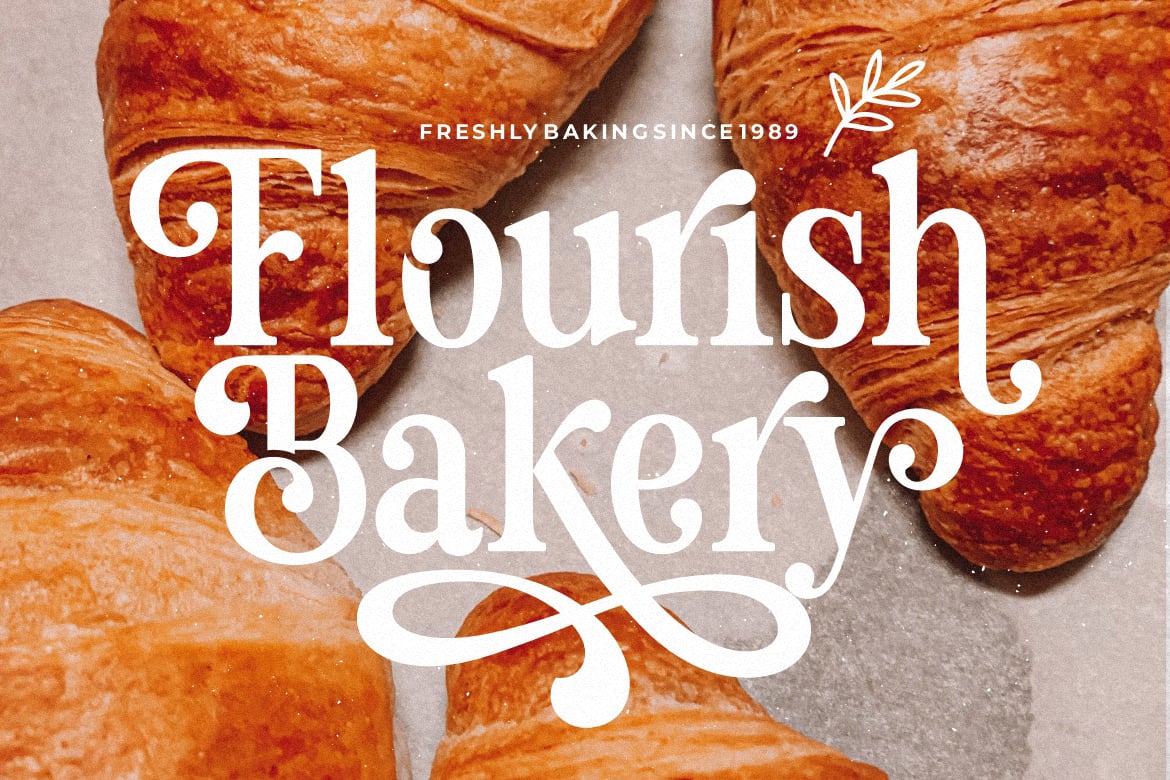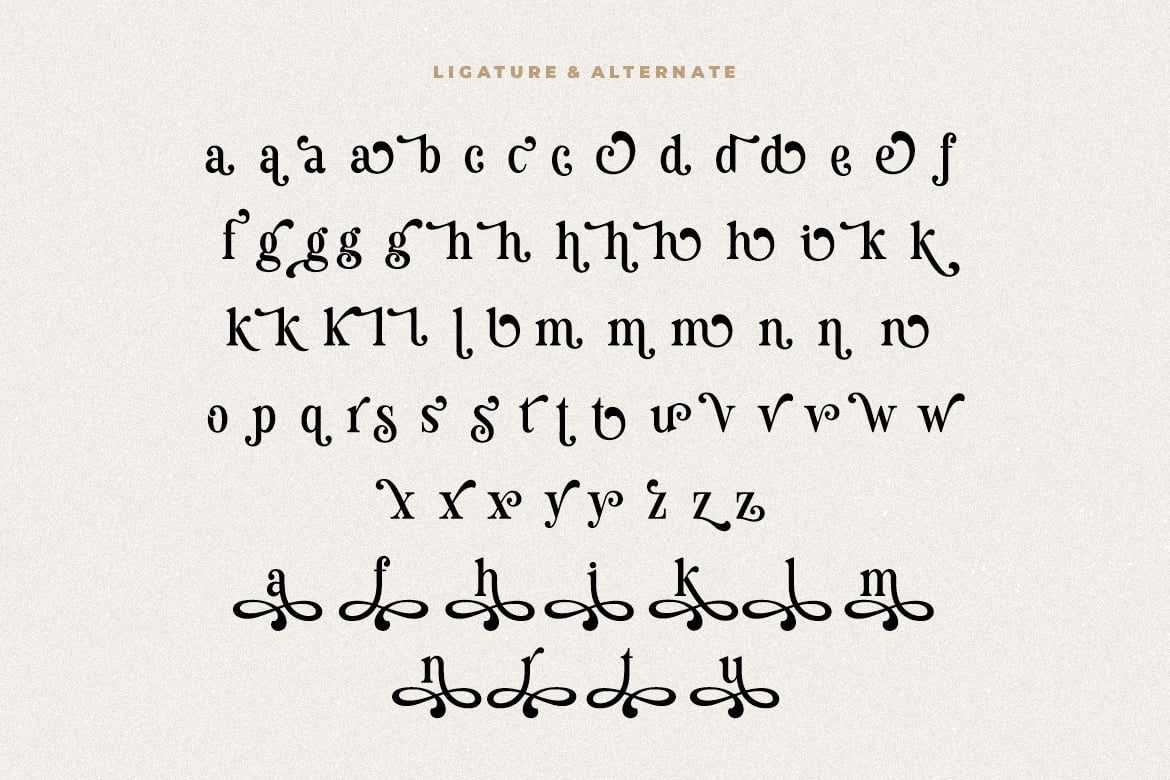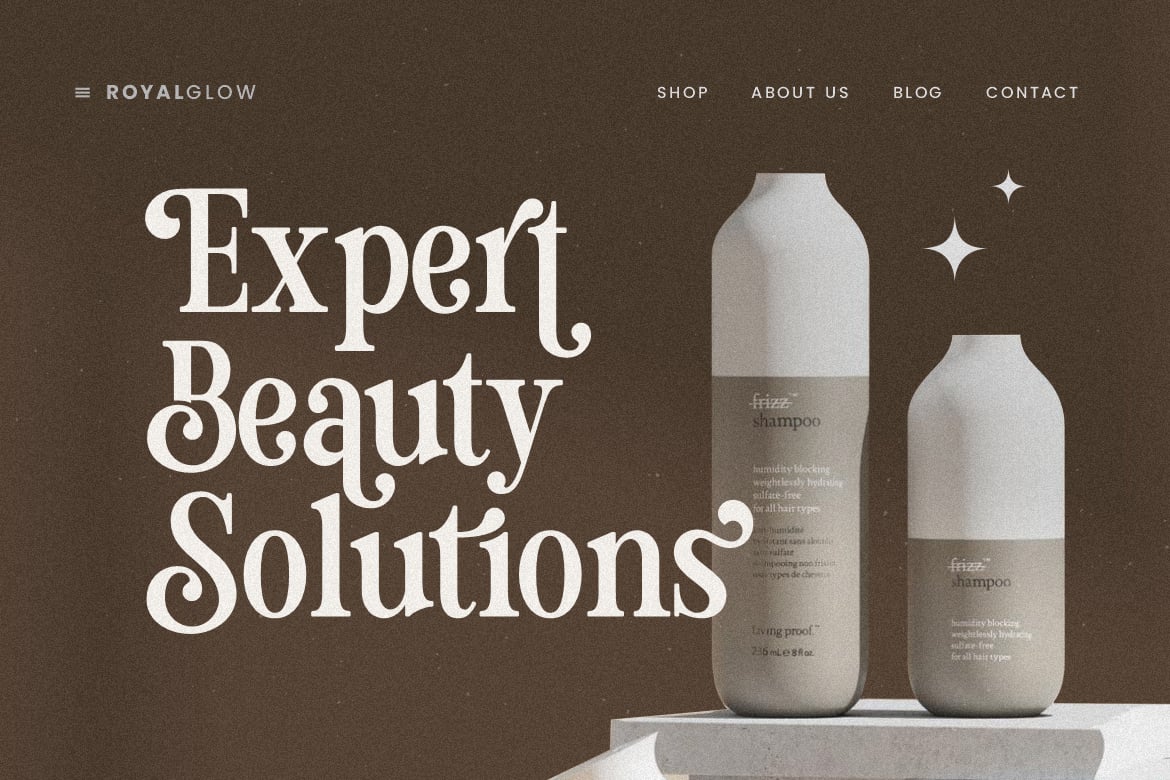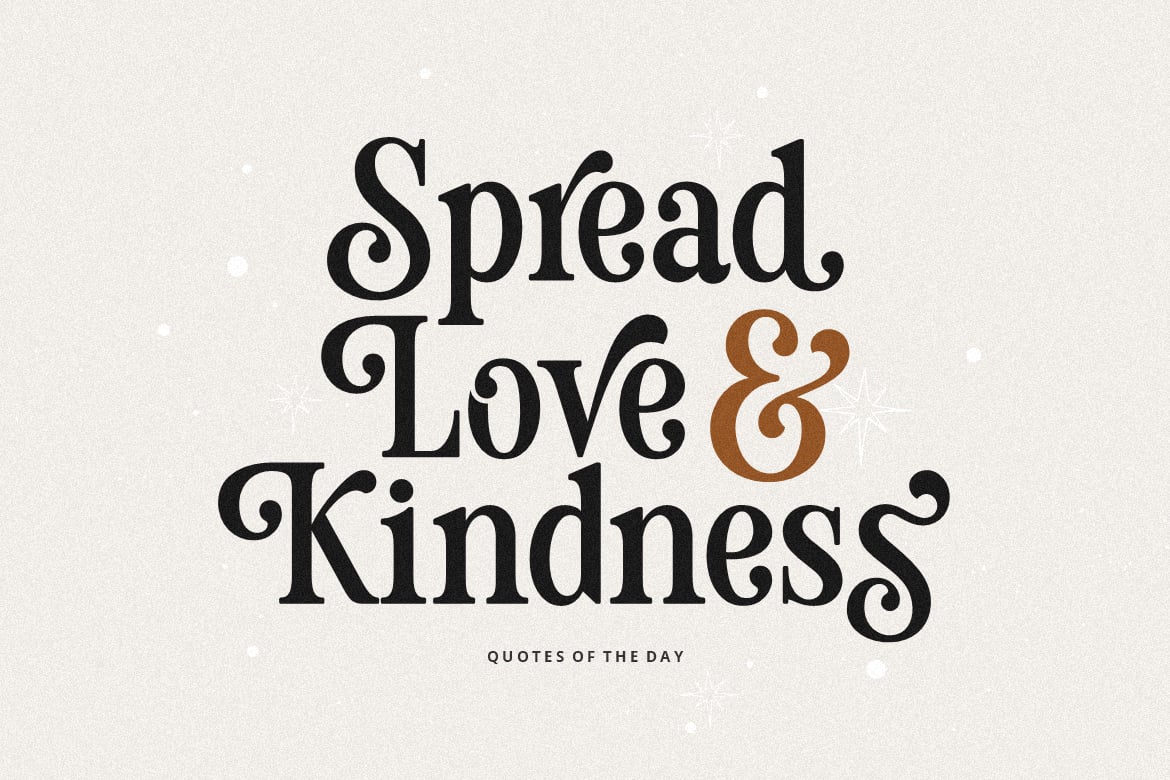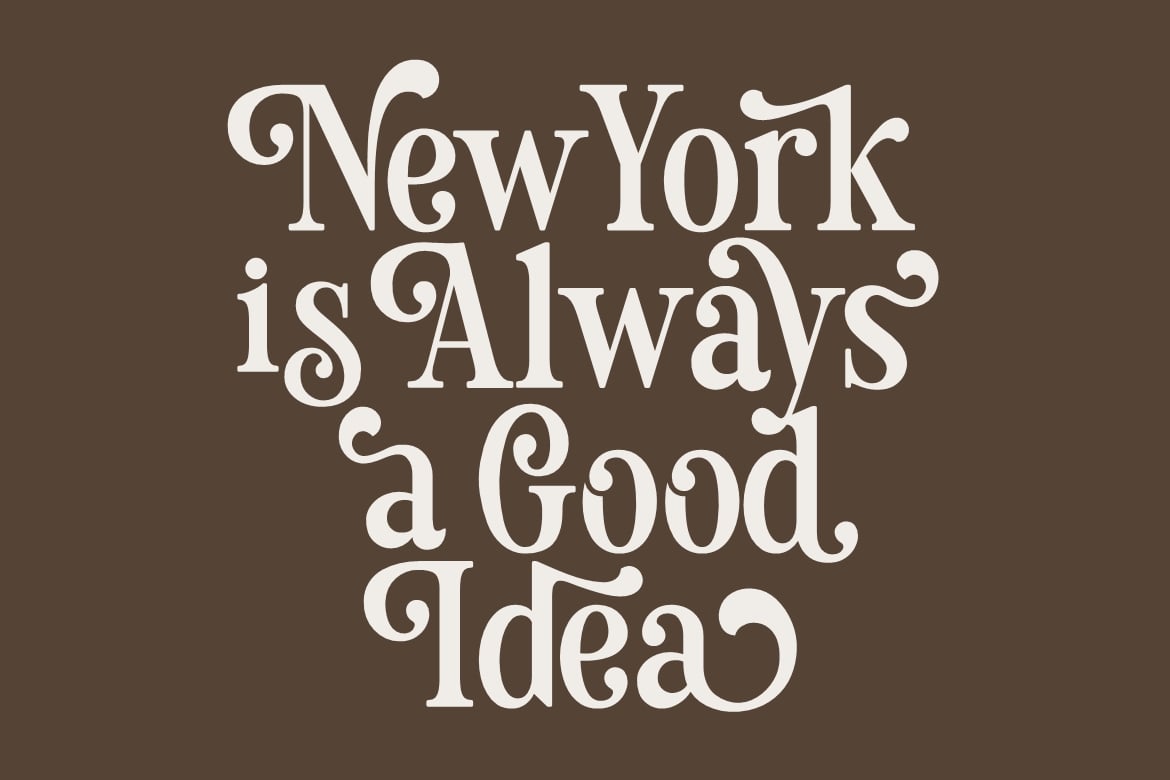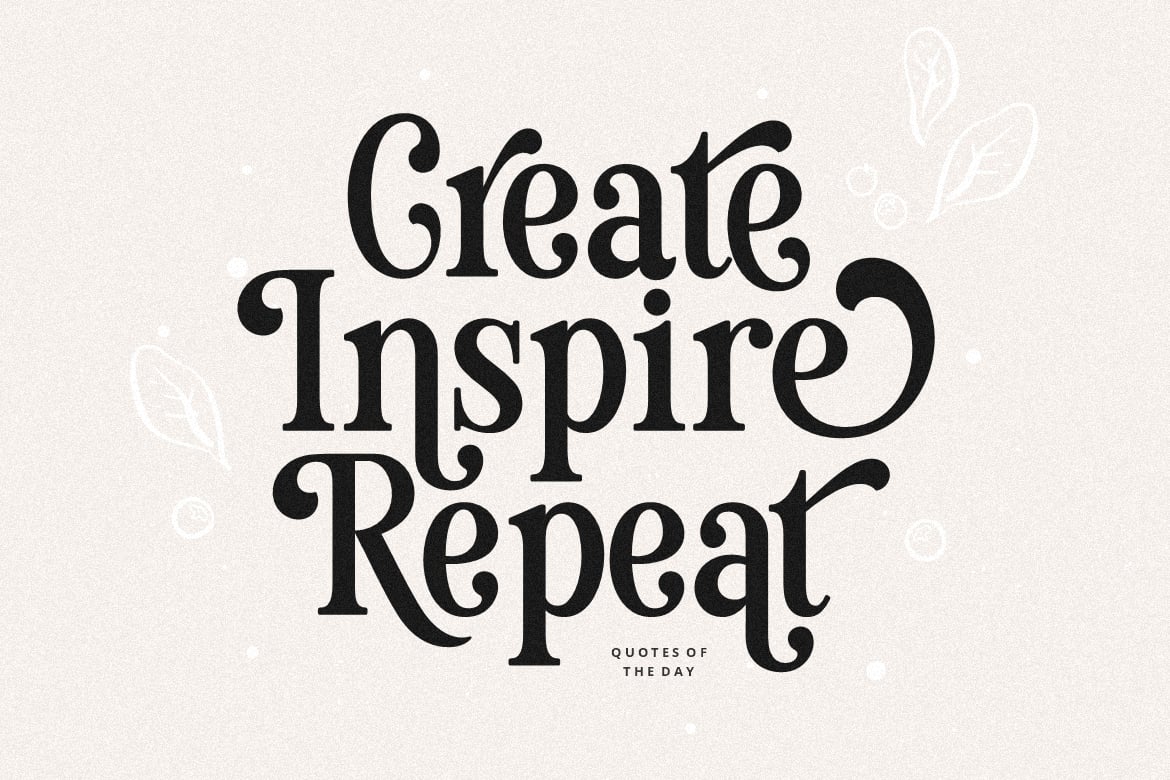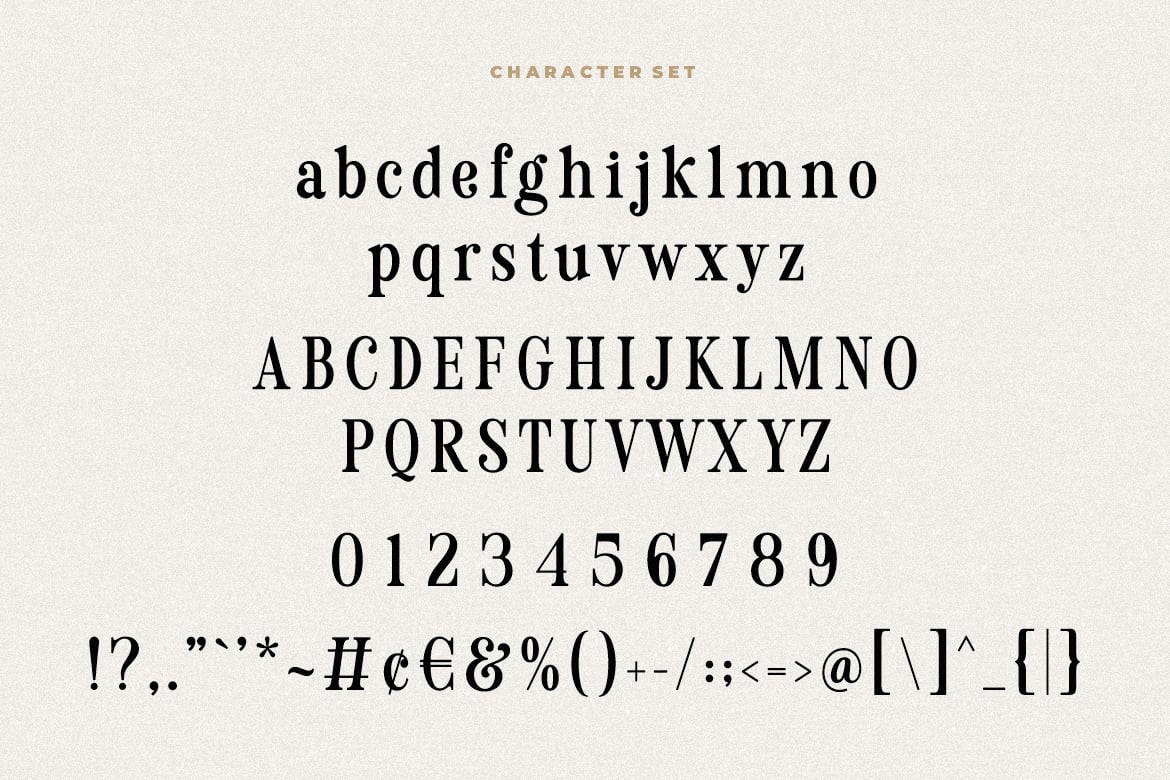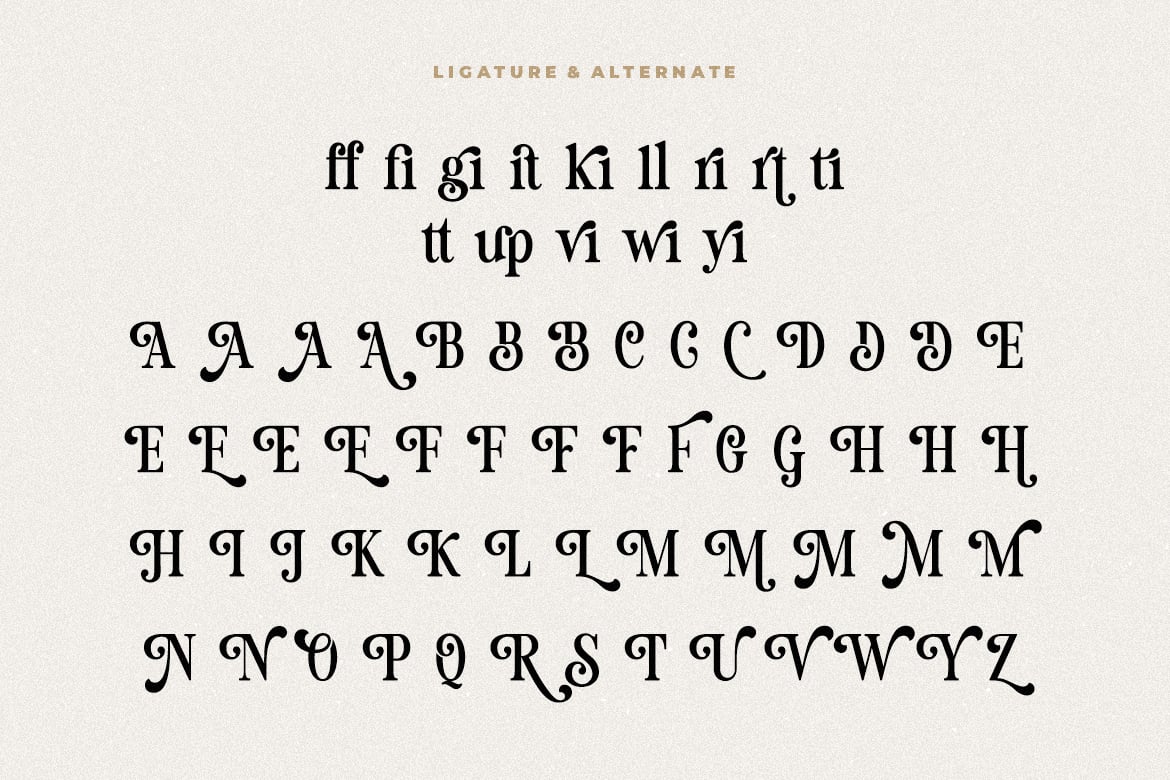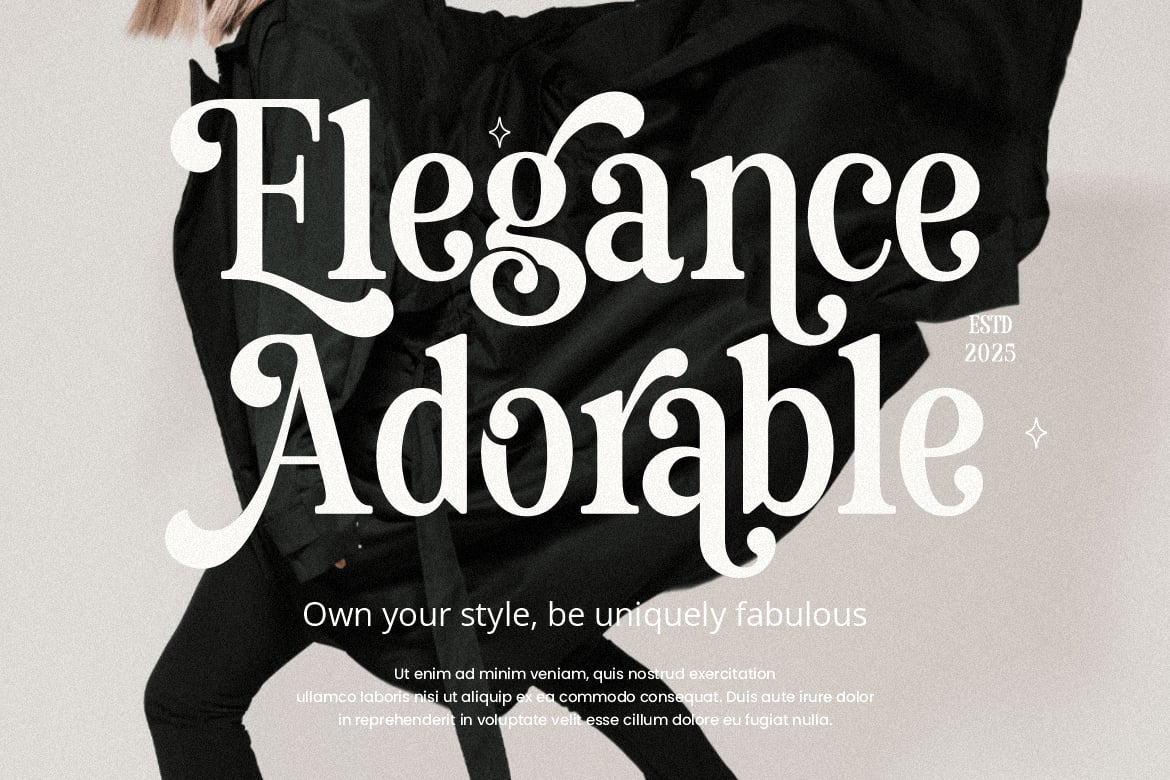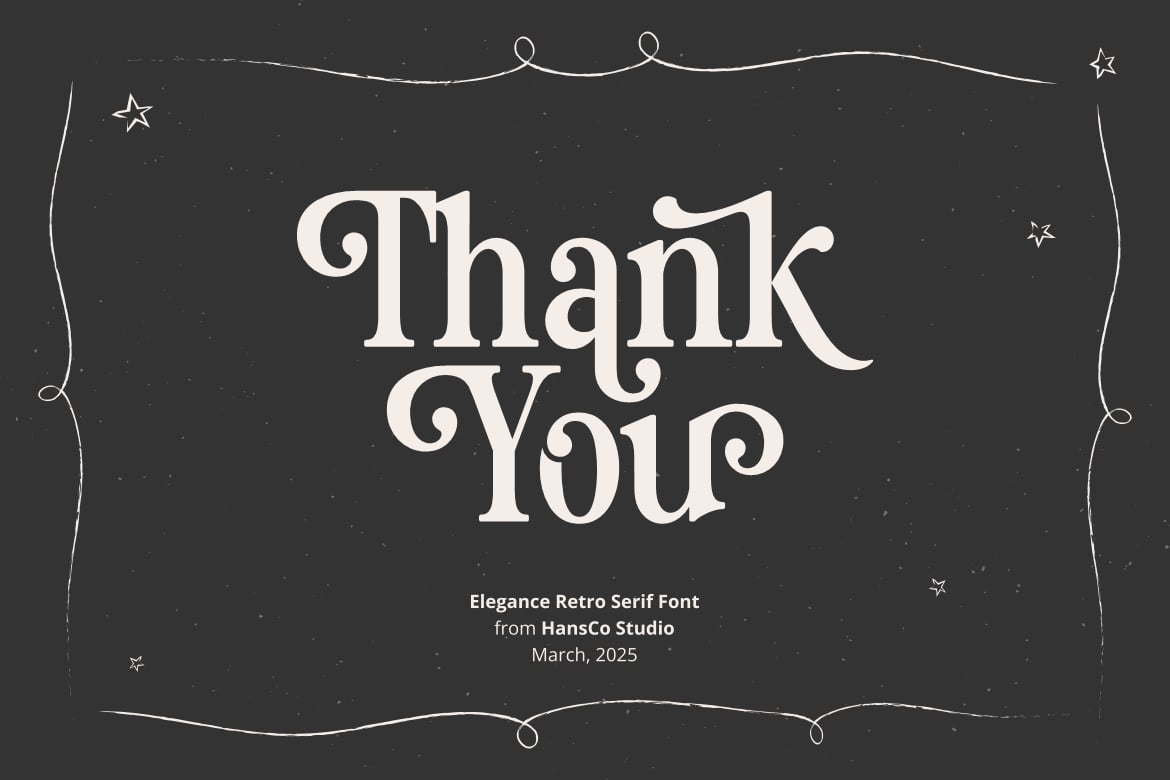
Magic Seventies Font
Magic Seventies Font is a beautiful and modern display serif font. It features an incredibly feminine and retro style, while still keeping a elegant feel. Magic Seventies is the perfect font for making designs project especially for those of you who want something unique with a smooth swash style in every characters on your logo or brand. It’s great for branding, logo designs, logotype, craft, posters, packaging and much more. You will also get several alternative characters on lowercase, uppercase and ligature in them, so that it will provide many great choices in your design. This font comes with a full uppercase, lowercase, numbers, punctuation and multilingual support.
- Alternate Character